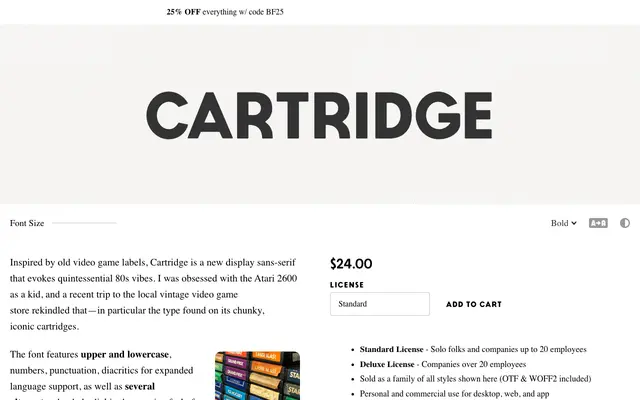
Cartridge
A display sans-serif drawn from the typography of Atari 2600 game cartridges, offered in five weights across standard and softened variants.
Inspired directly by the chunky label lettering of early 1980s Atari cartridges, the family spans five weights from Light to Black, each available in a standard and a Soft variant with rounded terminals. Alternate characters allow designers to dial in the period feel more precisely, and three pixel-art Bit Monster dingbats are included as Easter eggs. Upper and lowercase, diacritics and extended punctuation give it broader utility than a strict novelty face.
Explicitly described as a display sans-serif, with retro geometric letterforms inspired by early 1980s Atari video game cartridge typography, placing it firmly in the display category.